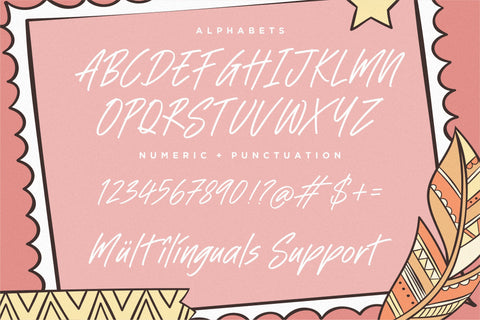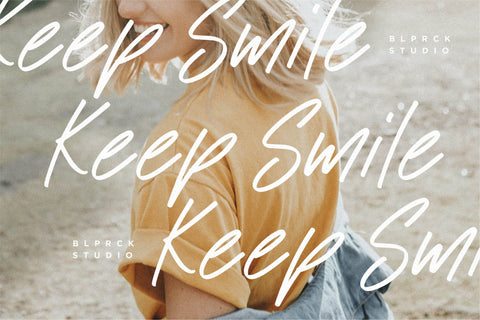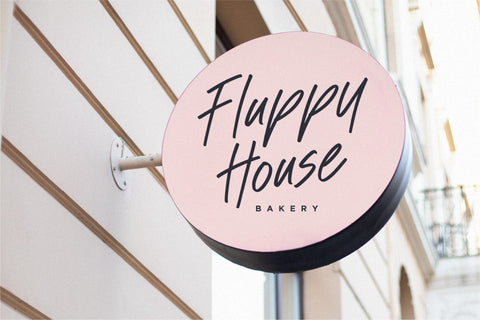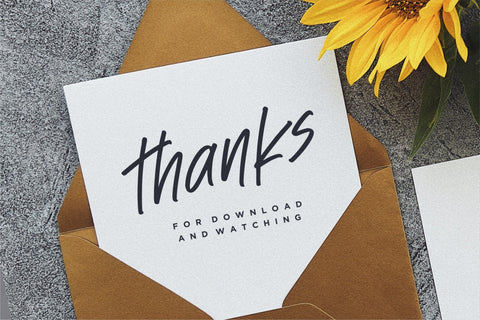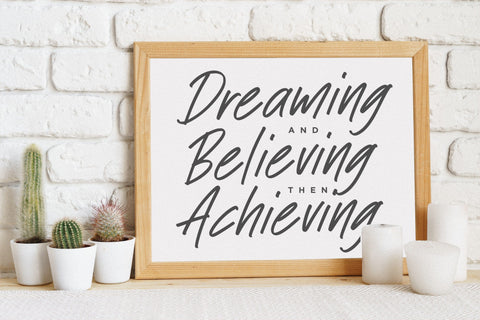
Hungry Dreamy Font
Hungry Dreamy is a Handwritten Font.
Whether you’re using it for crafts, digital design, presentations, or making greeting cards, this font has the potential to become your favorite go-to font, no matter the occasion!